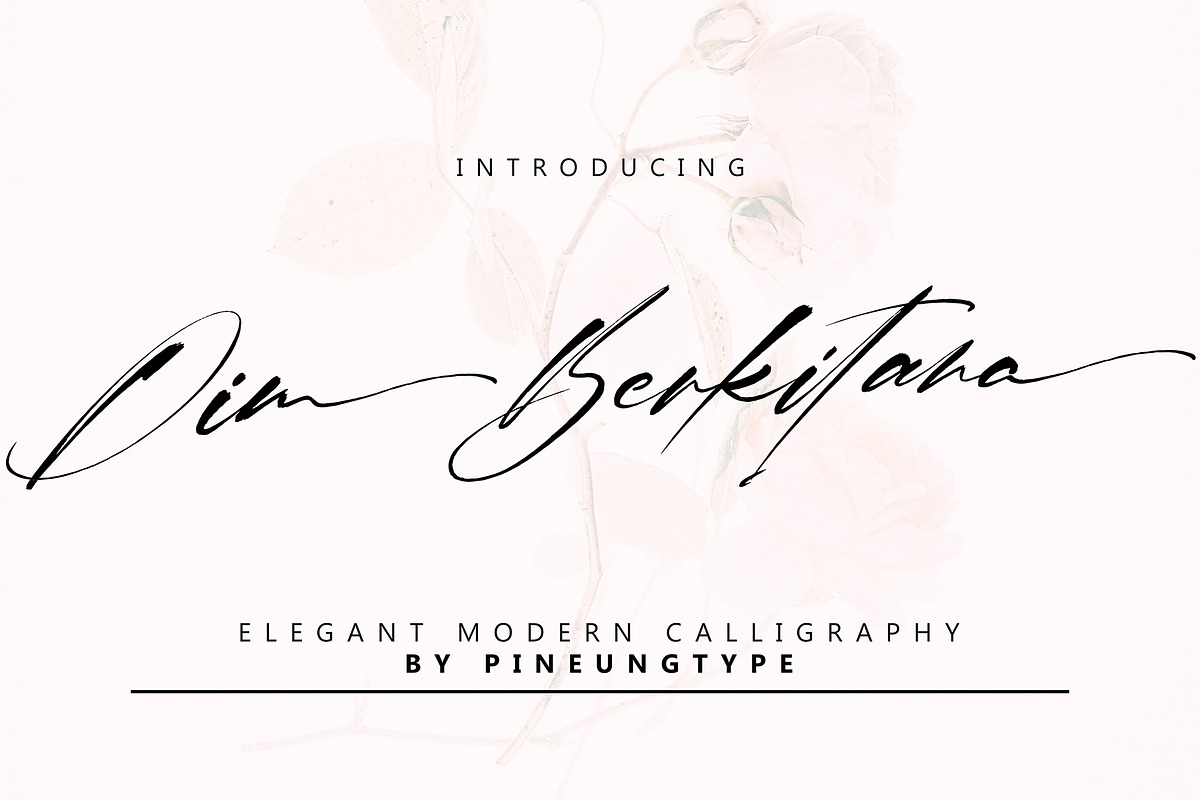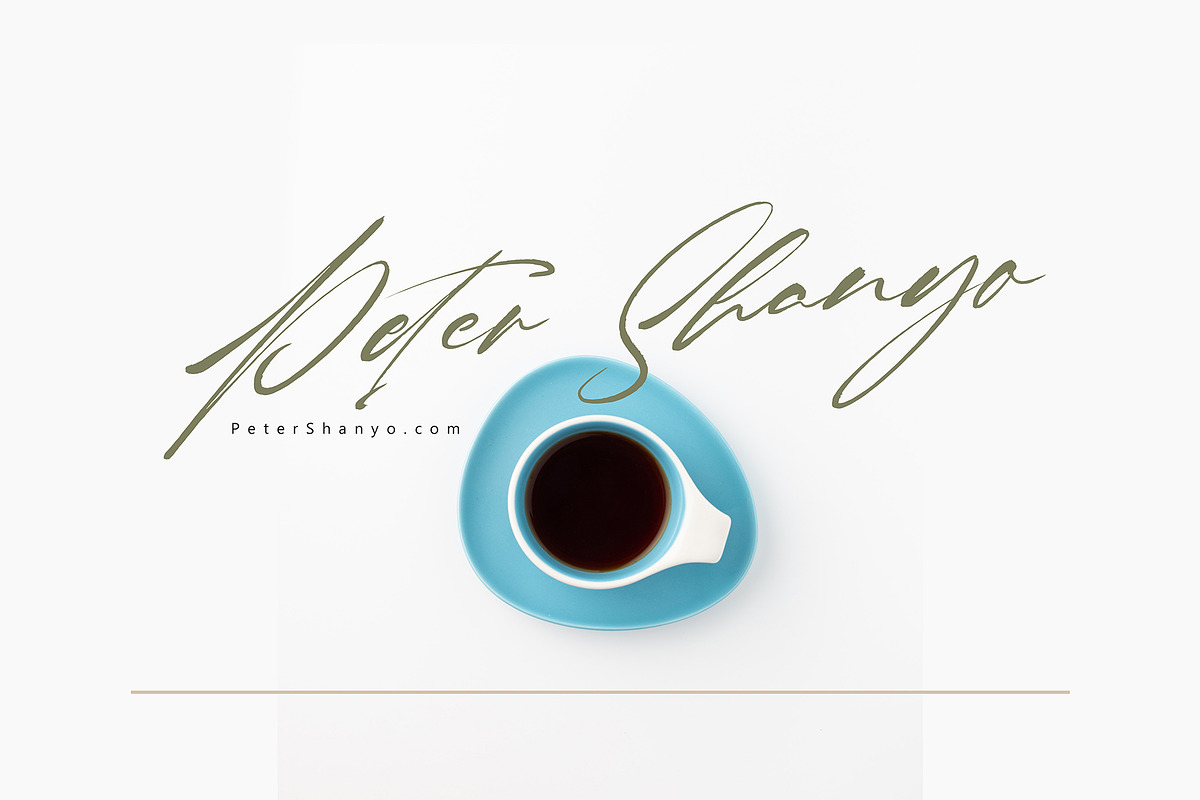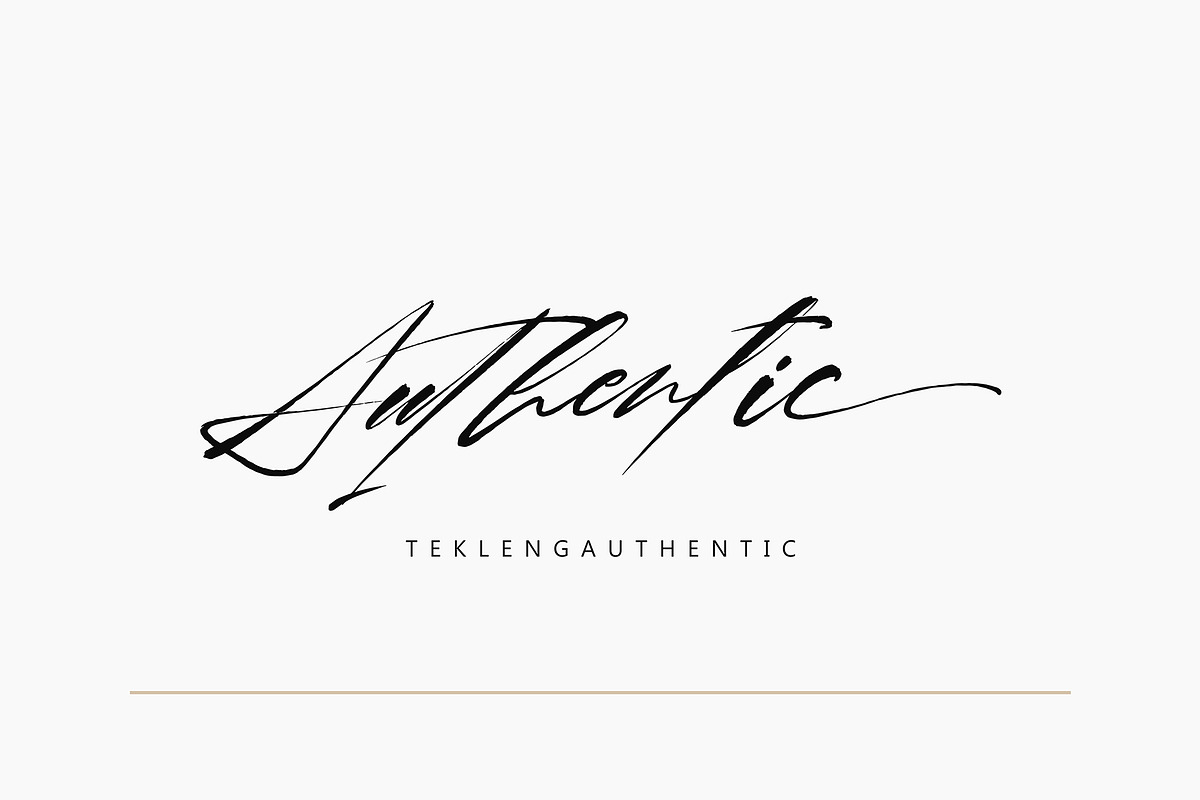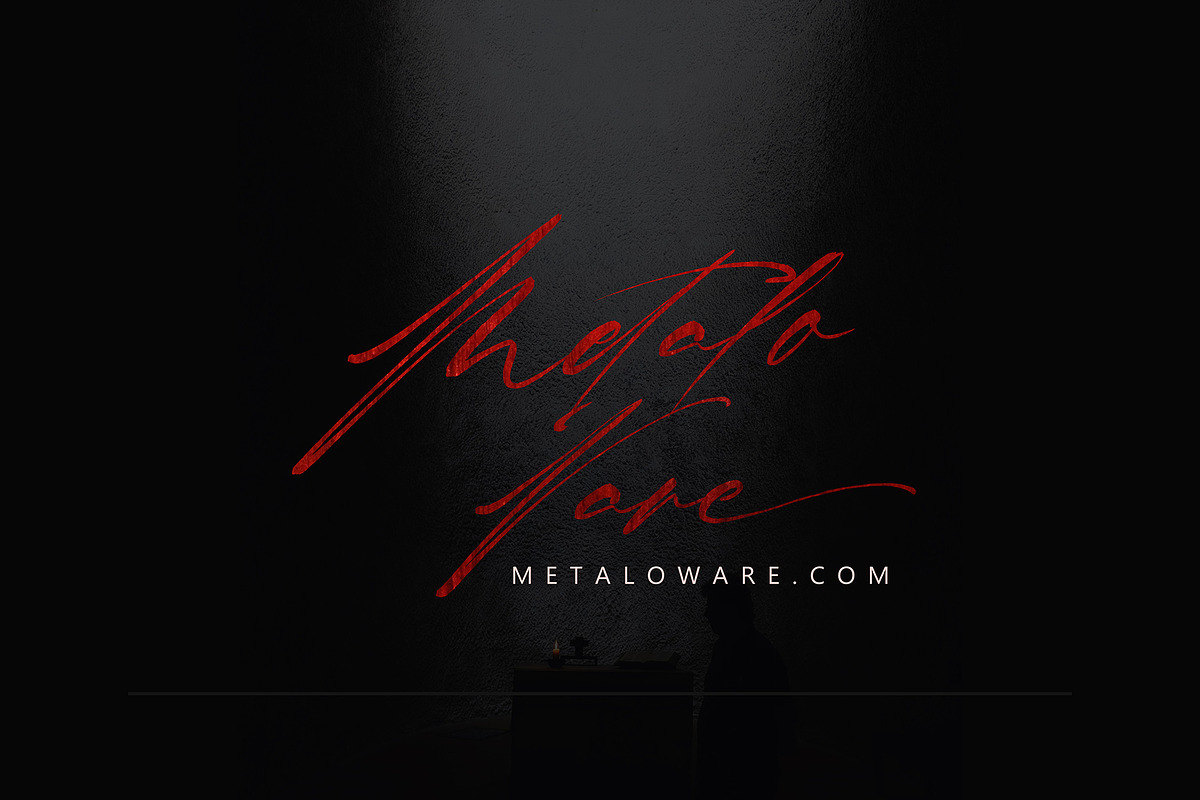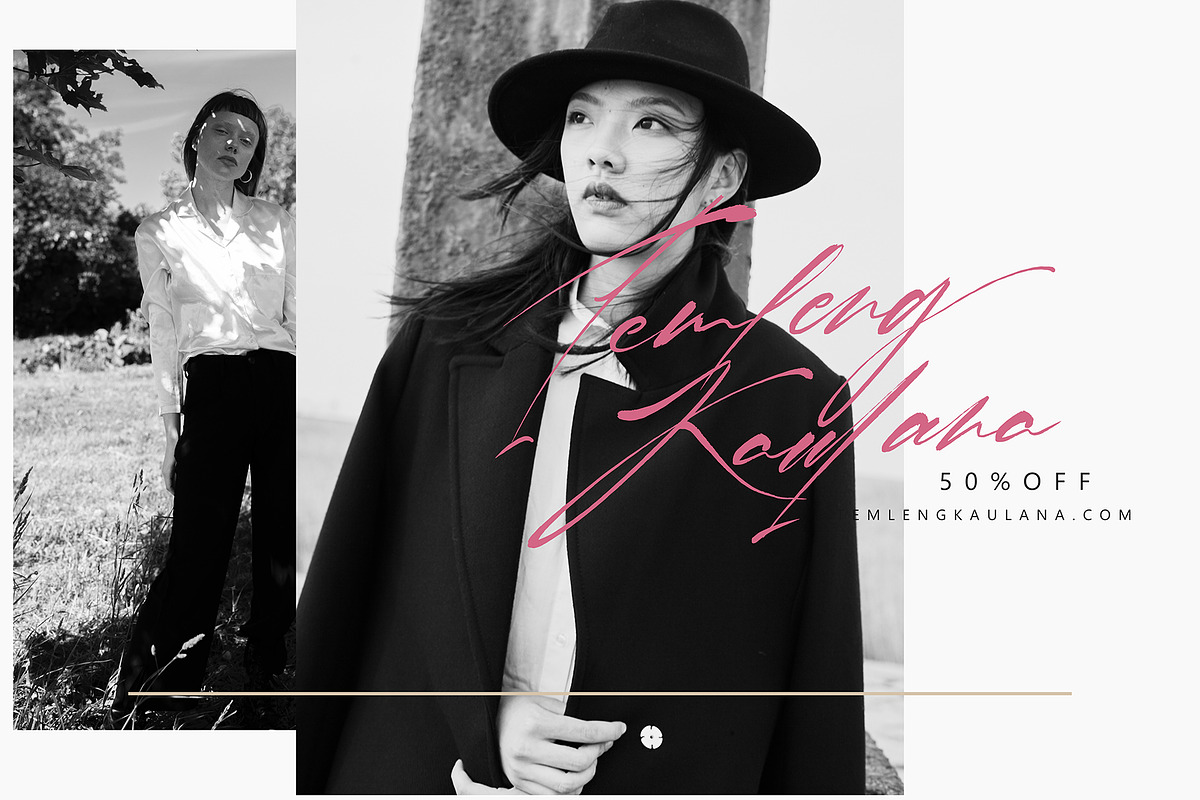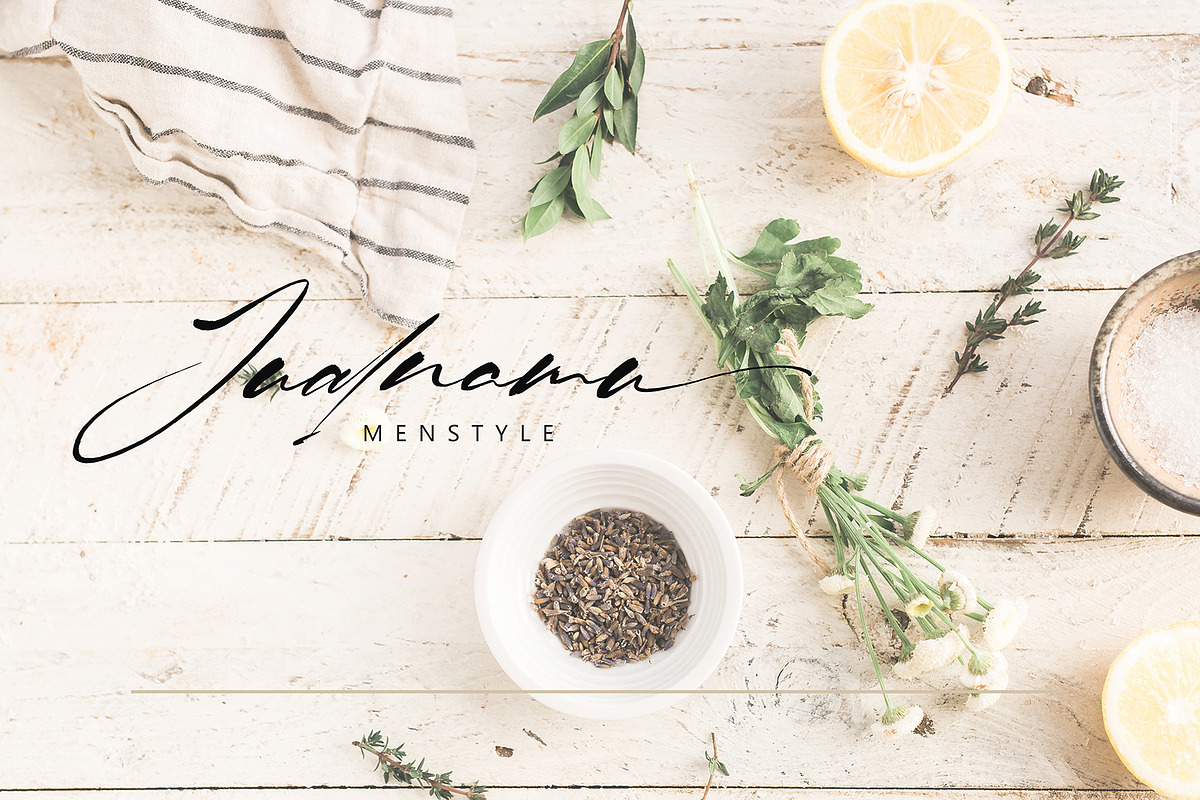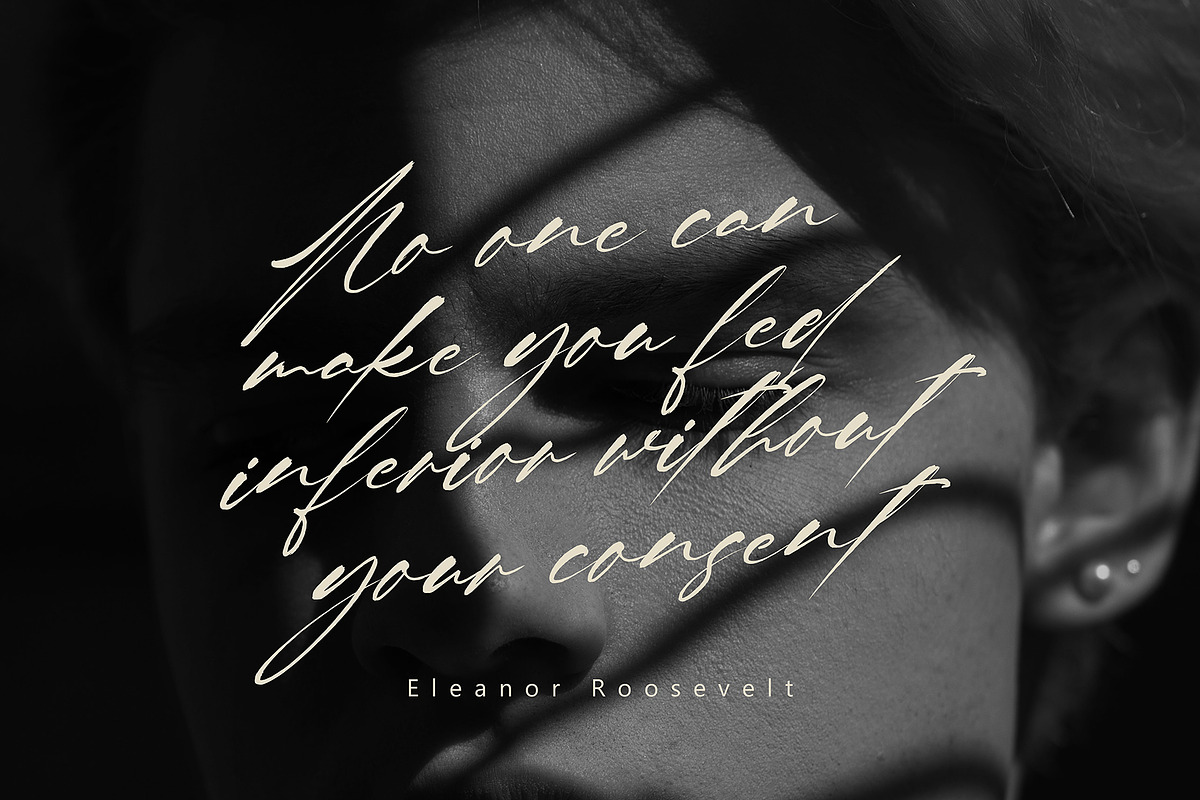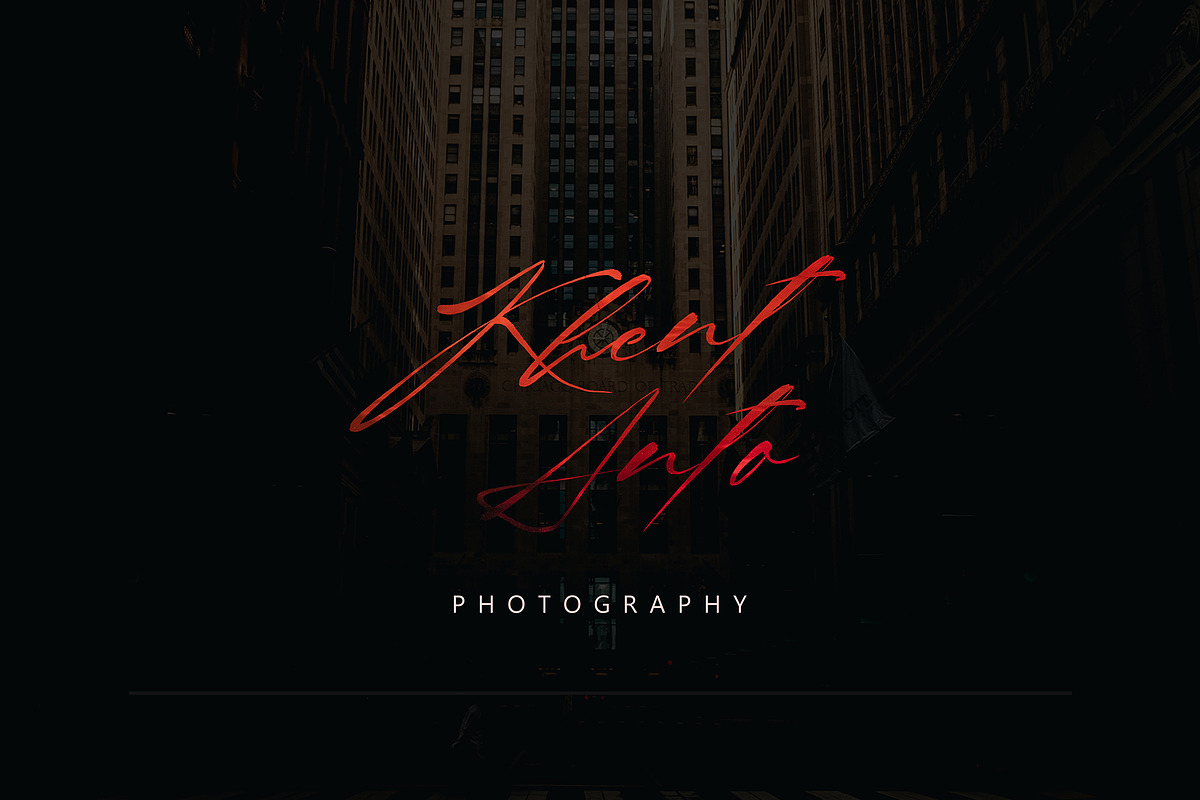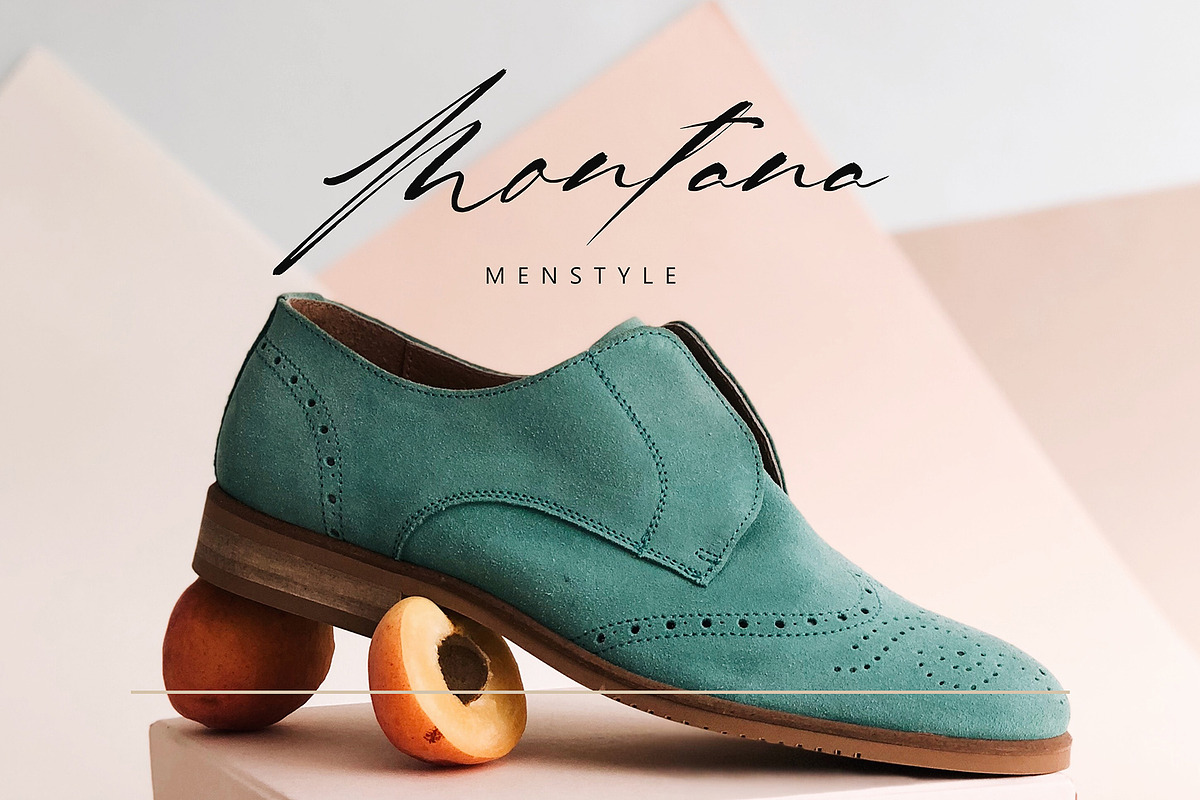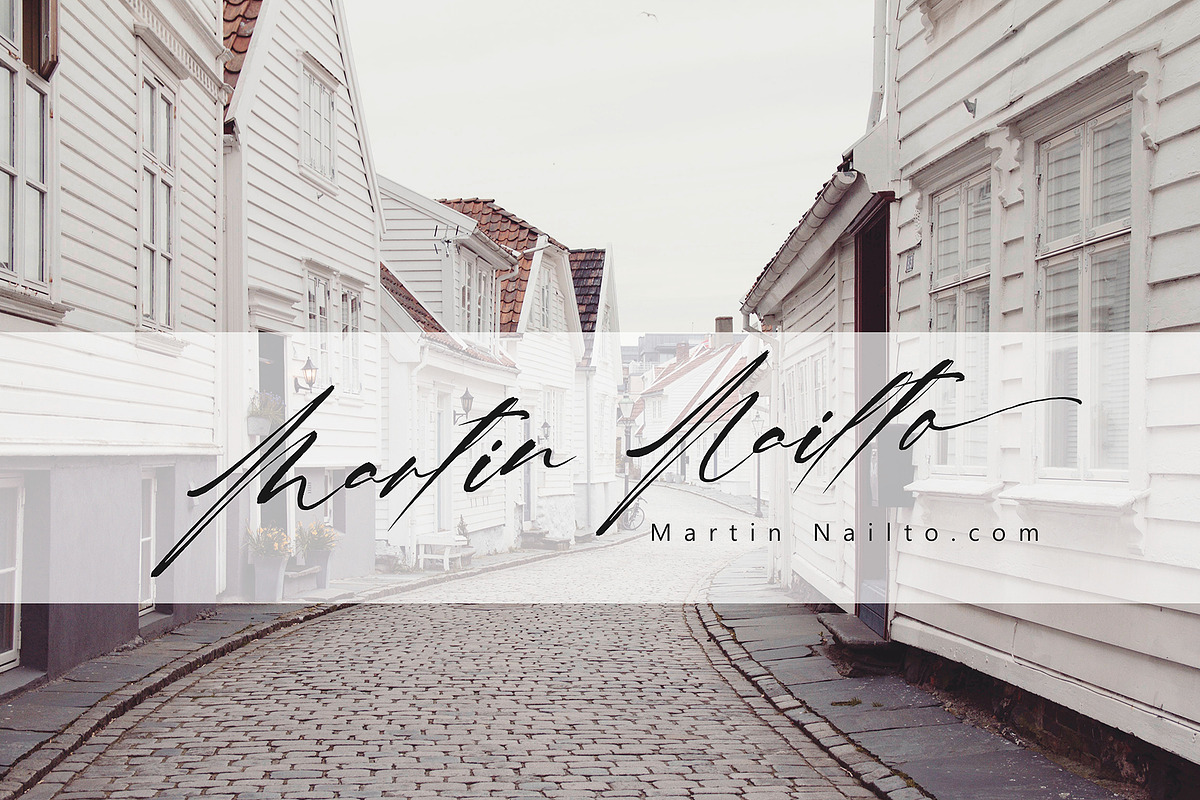
Dim Berkitana Black Friday
Dim Berkitana brush font this font will perfect for many different project ex: quotes, logo, blog header, poster, banding, fashion, apparel, letter, invitation, stationery, etc...